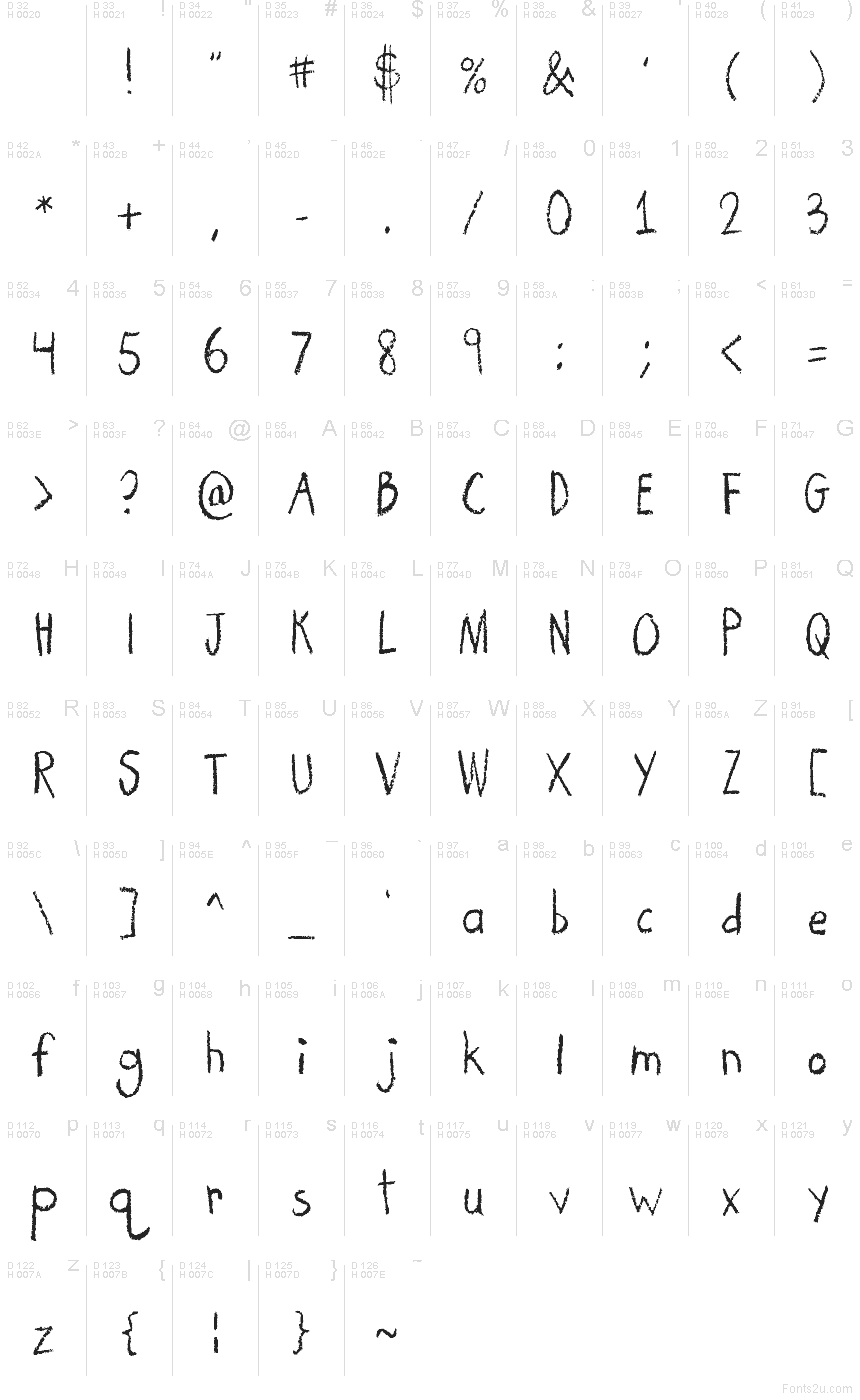
TC Chalkster
TC Chalkster font by Type City Font Co. is a free chalk script typeface that captures the rough, dusty drag of real chalk on a board. The letters are tall, slightly wobbly, and flecked with grainy texture, so it instantly feels like something scrawled during a lesson or on a café specials board. It’s casual but still legible, giving you that spontaneous hand-lettered energy without losing clarity.
Using TC Chalkster, you can bring authentic chalkboard character to classroom posters, café menus, kids’ party invites, quote graphics, recipe cards, and playful branding. This free font shines at larger sizes where its scratchy detail really shows, while a clean sans-serif in small text makes a great supporting partner.